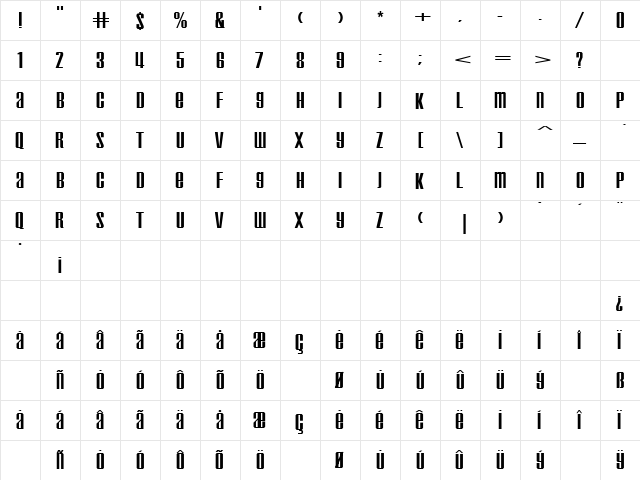
Inflammable Age Normal
Design Context for Inflammable Age Typeface
Inflammable Age is a composed and adaptable typeface that performs quietly and consistently across a wide range of design contexts.